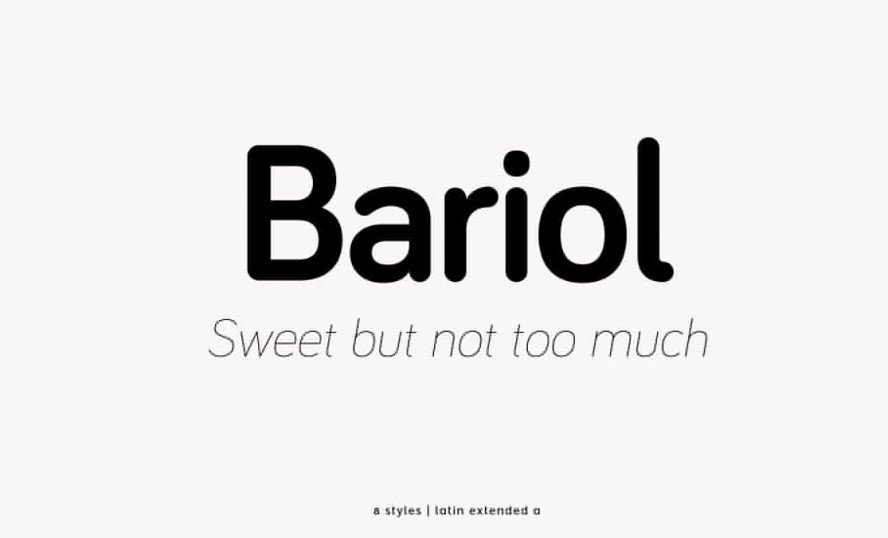
This can be use as pairing with the combination of apercu font in any type of projects like logos, minimalist logo, posters, banners, headlines, and so on.
We are excited to present the sleek and modern rounded typeface known as Bariol Font. With its distinctive features and unique styles, this font has everything you need to create the perfect project.
This can be use as pairing with the combination of apercu font in any type of projects like logos, minimalist logo, posters, banners, headlines, and so on. There are numerous projects can be made with this font.